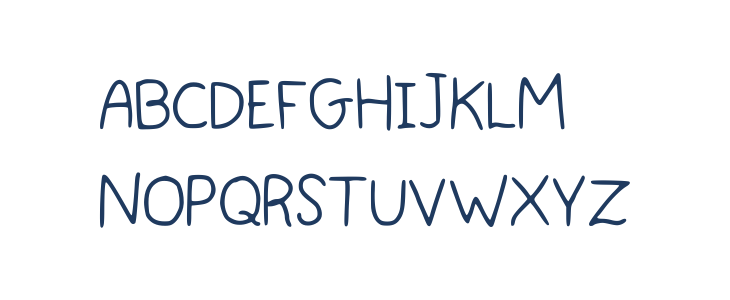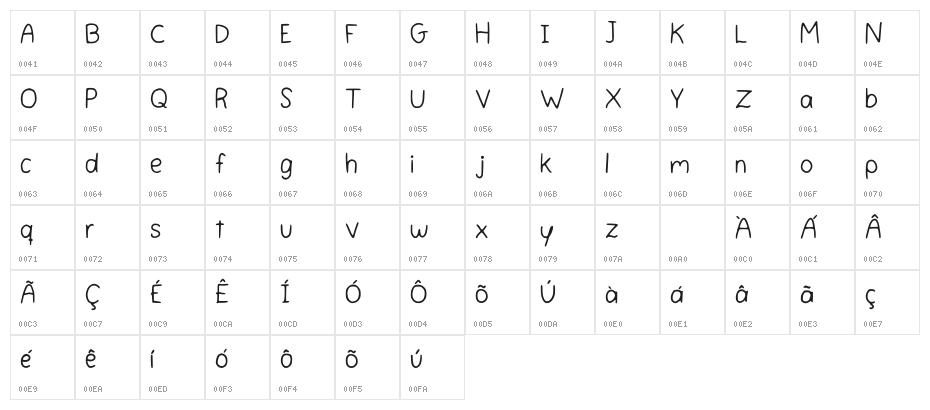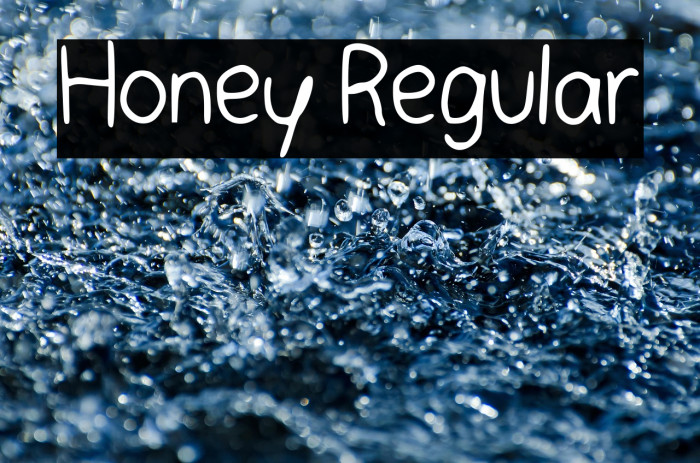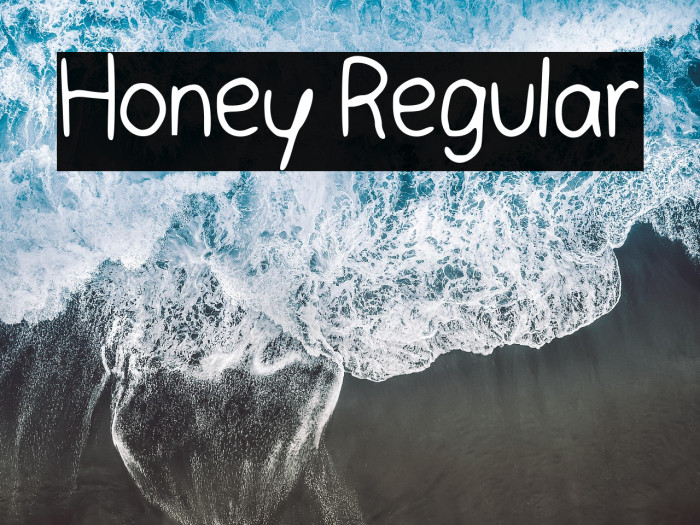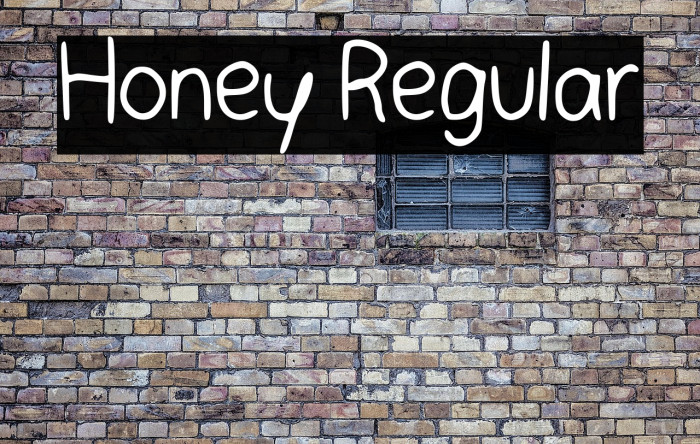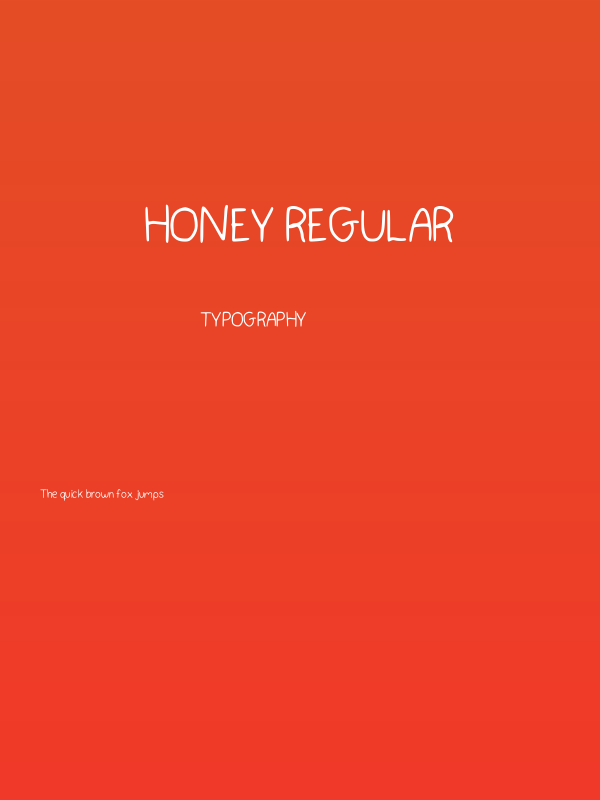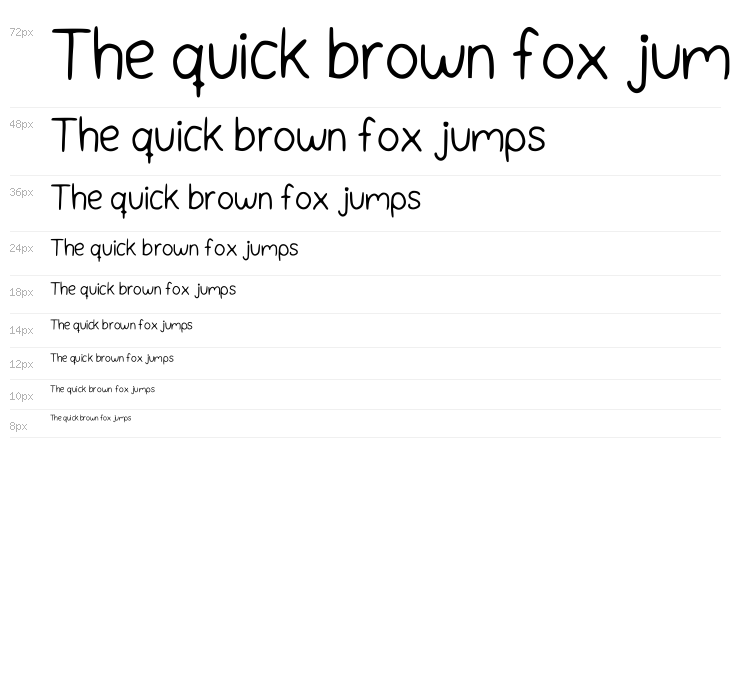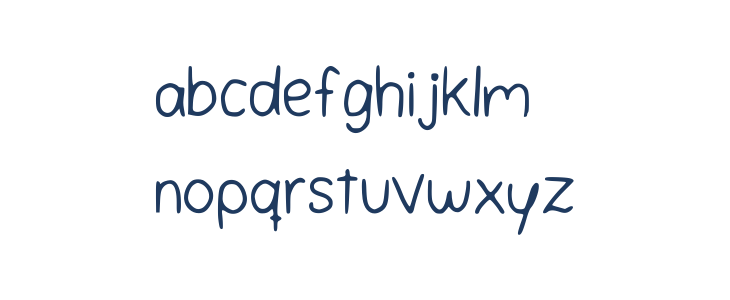
Honey Regular Font
Honey Regular Description
A playful, handwritten sans-serif font with rounded edges and irregular, organic letterforms. The strokes are consistent in thickness, giving it a casual and friendly appearance. The characters are slightly uneven, enhancing the hand-drawn feel.
| Overall Style | Playful, Casual, Handwritten |
| Use Case | Headlines, Posters, Informal text, Children's materials |
| Proposed Projects | Children's books, greeting cards, informal branding, posters, educational materials. |